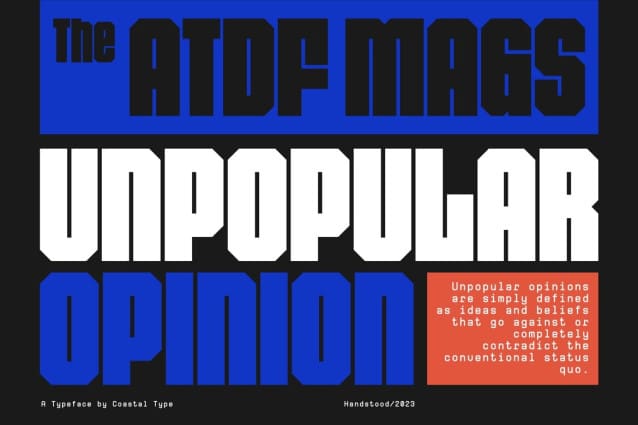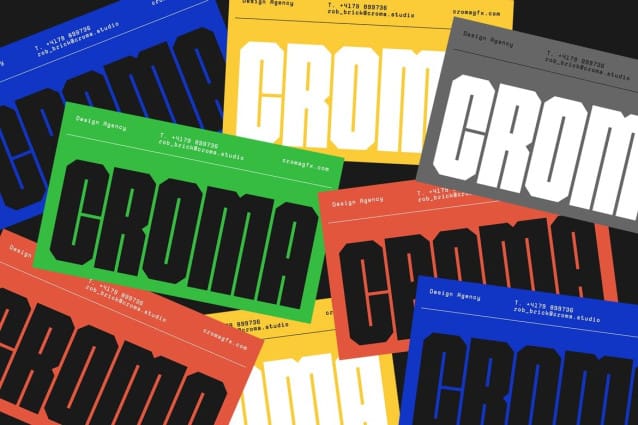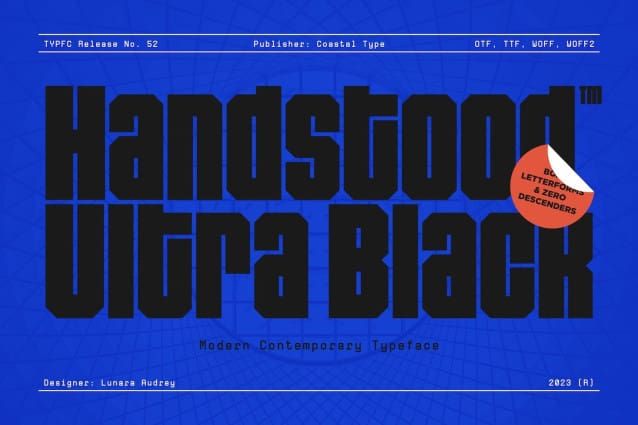
Handstood Ultra Black Font
Handstood Ultra Black Font, an elegant, contemporary typeface with striking geometric shapes and a unique feature: no progeny. With meticulously designed tight kerning, it sets the stage for an unprecedented viewing experience. From ambitious branding projects to captivating editorial headlines, Handstood effortlessly elevates any design to new heights of sophistication.